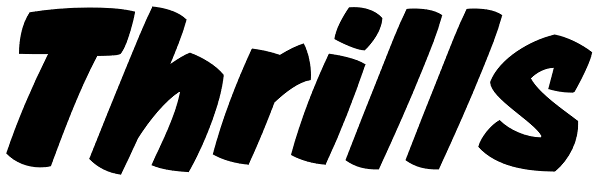
Thrills
Slash your prices and guarantee rush delivery with our fresh, adrenalin-packed, display font, Thrills! It's urgent, it's compelling, and it MUST NOT BE MISSED.
Thrills Font